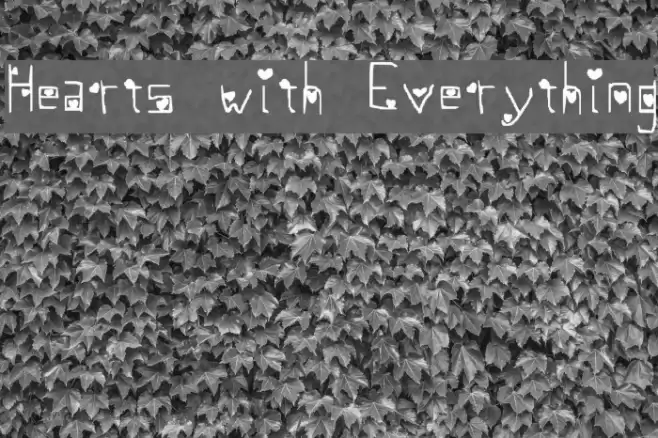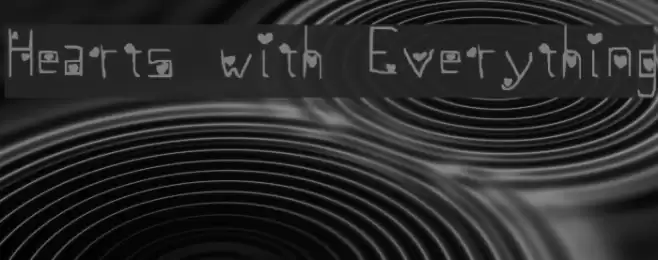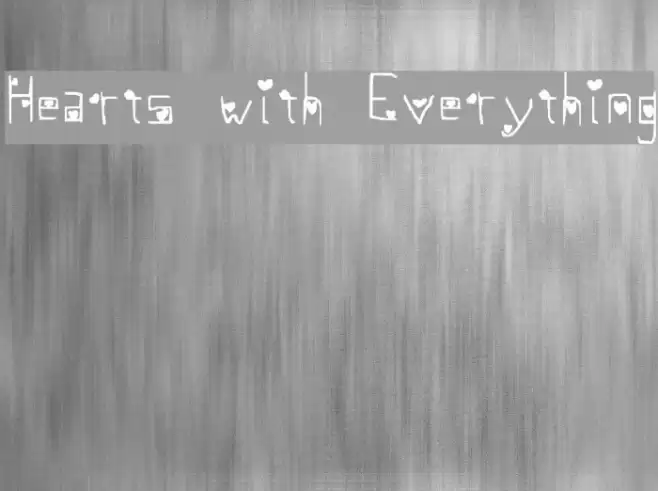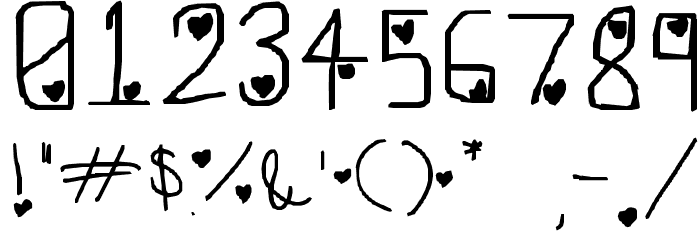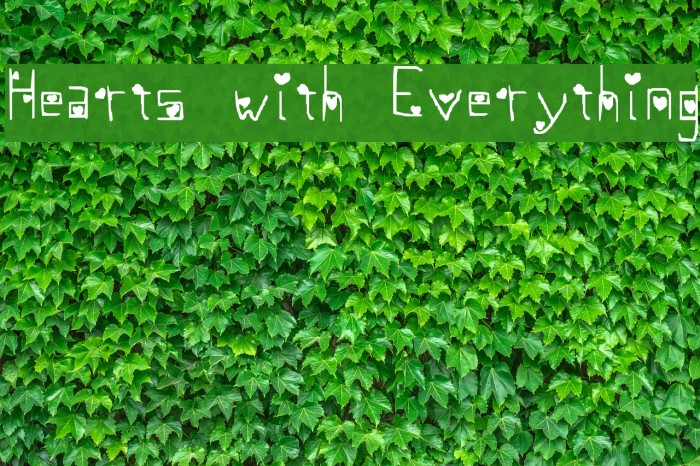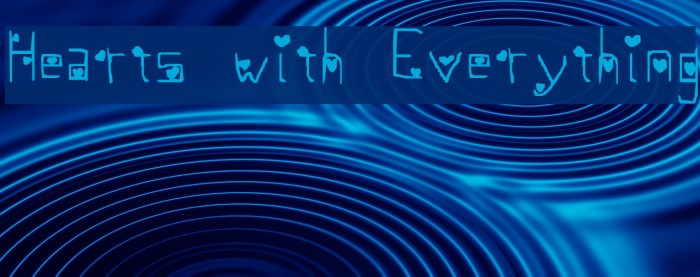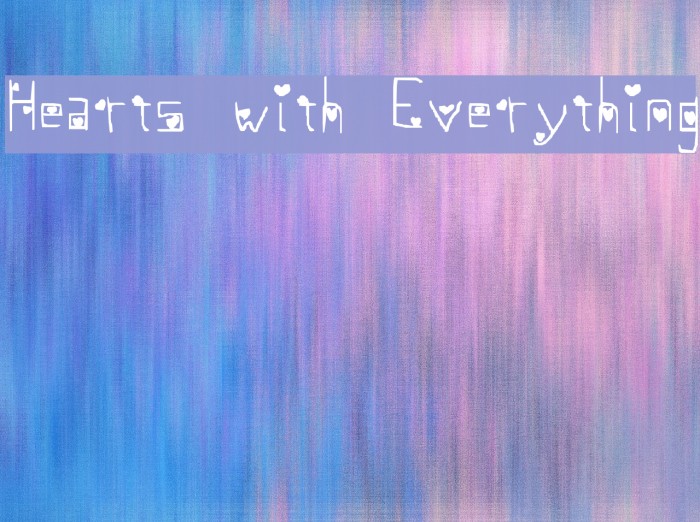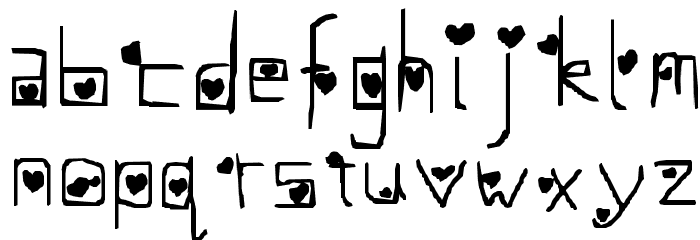
Hearts with Everything Font
Hearts with Everything Description
This playful and whimsical font features heart shapes integrated into each character, giving it a unique and charming appearance. The letters are hand-drawn with a casual, informal style, making it perfect for designs that aim to convey warmth and affection. The uppercase and lowercase letters maintain a consistent style, with the heart motif prominently displayed. Numbers and special characters also incorporate the heart design, ensuring a cohesive look across all elements. The strokes are uneven, adding to the handmade feel of the font, while the spacing between characters is relatively tight, enhancing its compact appearance.
A playful, heart-themed font with a hand-drawn, whimsical style from Uncategorized fonts.
- Proposed Projects: Ideal for Valentine's Day cards, wedding invitations, love-themed posters, and playful branding projects.
- Character Spacing: Tight
- Use Case: Logos, Headlines, Invitations